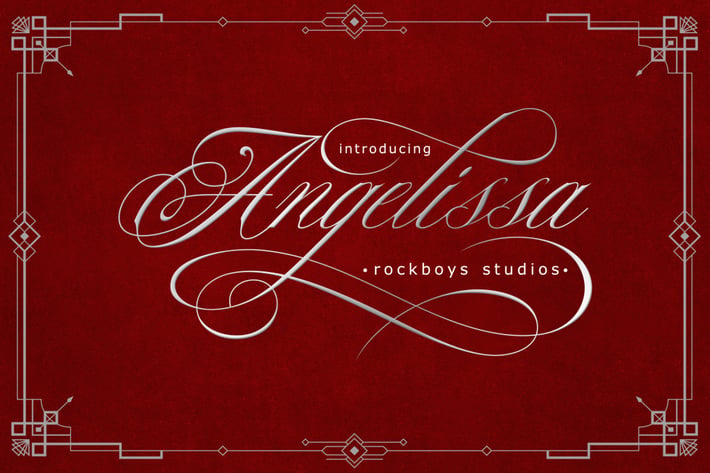
Angelissa - A Calligraphy Font
Angelissa is a beautiful and elegant handwritten font. Delicate and well balanced, this font will brighten up each of your designs.